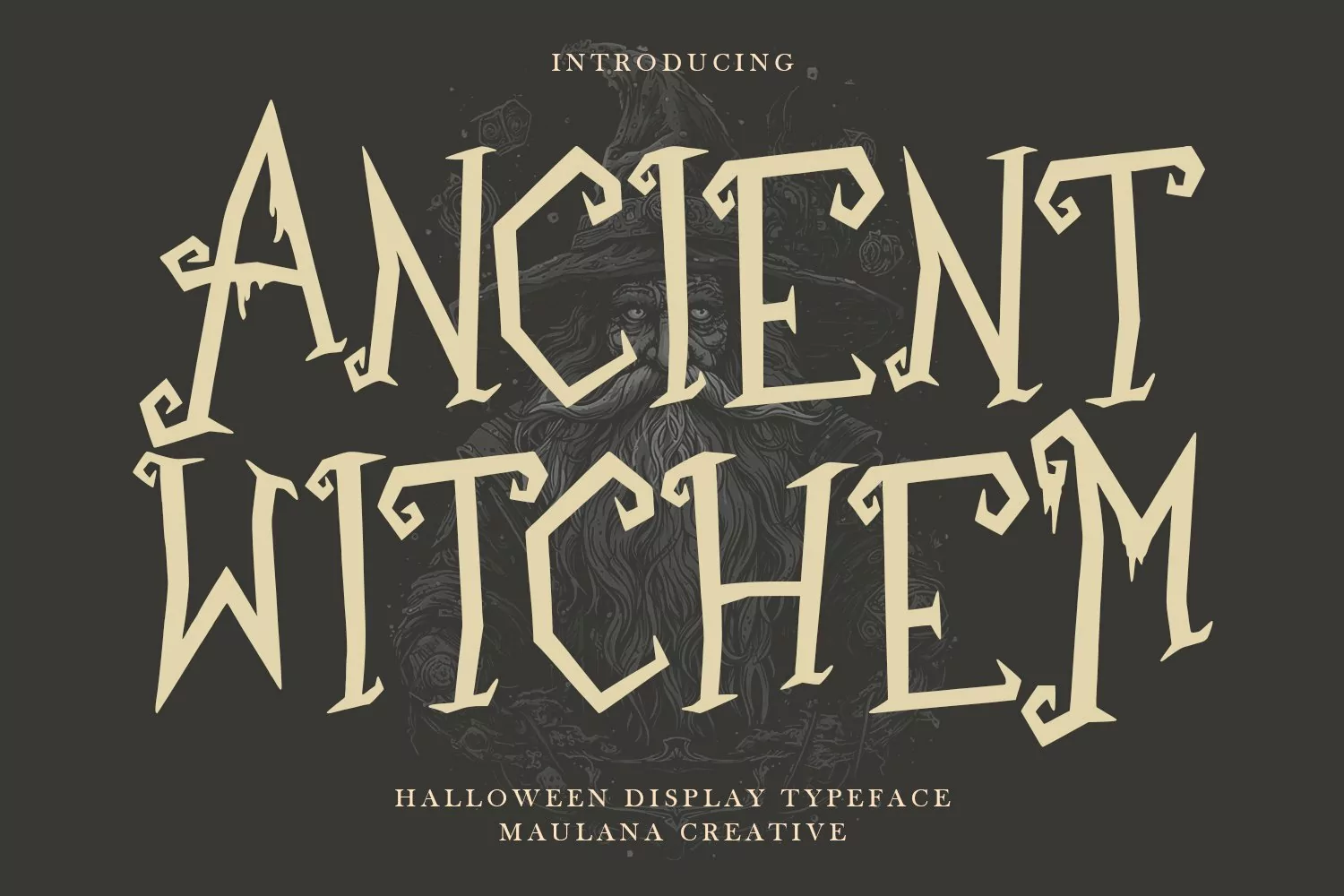
Ancient Witchem halloween display typeface. Heavy stroke, fun character with a bit of ligatures. To give you an extra creative work. Ancient Witchem halloween display typeface support multilingual more than 100+ language. This font is good for logo design, Social media, Movie Titles, Books Titles, a short text even a long text letter and good for your secondary text font with script or serif. Make a stunning work with Ancient Witchem halloween display typeface.